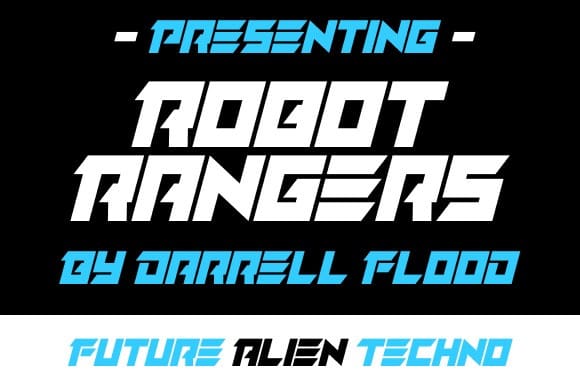
Robot Rangers Font
Robot Rangers Font, this bundle features strong, confident and powerful typefaces designed to work great with sports logos, club branding, apparel applications, labels and more.